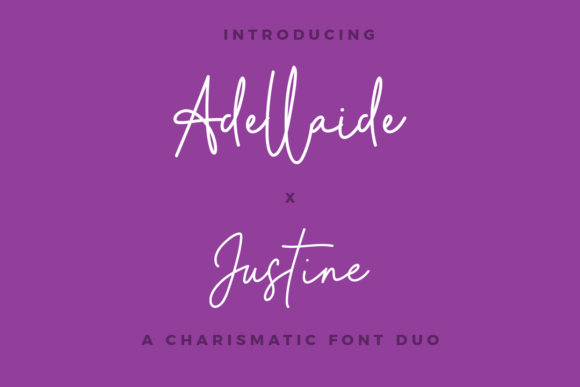
Introducing Adellaide X Justine Duo Font: Elevate Your Designs with Elegant Cursive Style
In the realm of typography, the right font can significantly impact the aesthetic and feel of your creative projects. For those seeking an infusion of elegance, nostalgia, and romance, the Adellaide X Justine Duo Font is an exceptional choice. This exquisite duo of fonts combines an elegantly flowing cursive style, offering a harmonious blend that replicates an authentic handwritten experience. Rich in character and sophistication, Adellaide and Justine are poised to become a cherished addition to your design repertoire.
The Essence of Adellaide and Justine
Adellaide and Justine are not just fonts; they are gateways to adding a personal touch to your designs. Their cursive style is meticulously crafted to bring a sense of fluidity and grace to any project. Whether you’re working on a branding campaign, a wedding invitation, a movie poster, or a personal blog, these fonts ensure that your work stands out with a unique charm.
The key to their appeal lies in their ability to convey emotion and tell a story through their elegant strokes and beautiful ligatures. Each letter is designed to flow seamlessly into the next, creating a harmonious and visually appealing text that captures the reader’s attention.
Characteristics of Adellaide X Justine Duo Font
- Elegant Cursive Style: The duo boasts a cursive style that exudes elegance and sophistication, perfect for designs that require a touch of class.
- Authentic Handwritten Experience: Despite being digital fonts, Adellaide and Justine manage to replicate the warmth and authenticity of handwritten text, adding a personal touch to your designs.
- Rich in Character: With a wide range of characters, including ligatures and alternate styles, these fonts offer versatility and can be used in various design contexts.
- Sophistication and Romance: Their design elements evoke a sense of nostalgia and romance, making them ideal for projects that aim to connect on an emotional level with the audience.
Applications of Adellaide X Justine Duo Font
The versatility of Adellaide and Justine makes them suitable for a wide array of applications. Here are some of the most notable uses:
- Wedding and Event Invitations: Their elegant and romantic appeal makes them perfect for wedding invitations, save-the-date cards, and other event-related designs.
- Branding and Packaging: For brands looking to convey a sense of luxury, elegance, and personal touch, Adellaide and Justine can be used in logos, product packaging, and marketing materials.
- Movie and Theater Posters: The fonts’ ability to evoke nostalgia and emotion makes them a great fit for movie posters, theater productions, and concert announcements.
- Blogs and Websites: For bloggers and website owners aiming to create a unique and memorable user experience, integrating Adellaide or Justine into their design can make a significant difference.
Tips for Using Adellaide X Justine Duo Font
To maximize the potential of Adellaide and Justine in your designs, consider the following tips:
- Mix and Match: Experiment with combining different weights and styles of the fonts to create visual hierarchy and add depth to your designs.
- Use with Complementary Fonts: Pair Adellaide or Justine with sans-serif fonts for contrast, or with other script fonts for a layered, elegant look.
- Pay Attention to Spacing: Ensure that the spacing between letters and lines is optimized to maintain the flow and readability of the text.
- Highlight Key Elements: Use these fonts to highlight key messages or calls to action, making them stand out and grab attention.
| Font Name | Adellaide X Justine Duo Font |
The Adellaide X Justine Duo Font offers an unparalleled opportunity to elevate your designs with an elegant cursive style that speaks of sophistication, romance, and personal charm. Whether you’re a designer looking to expand your toolkit or a DIY enthusiast aiming to create something unique, this font duo is sure to meet and exceed your expectations. With their versatility, beauty, and emotional resonance, Adellaide and Justine are poised to become your go-to fonts for projects that demand a touch of elegance and a lot of heart.